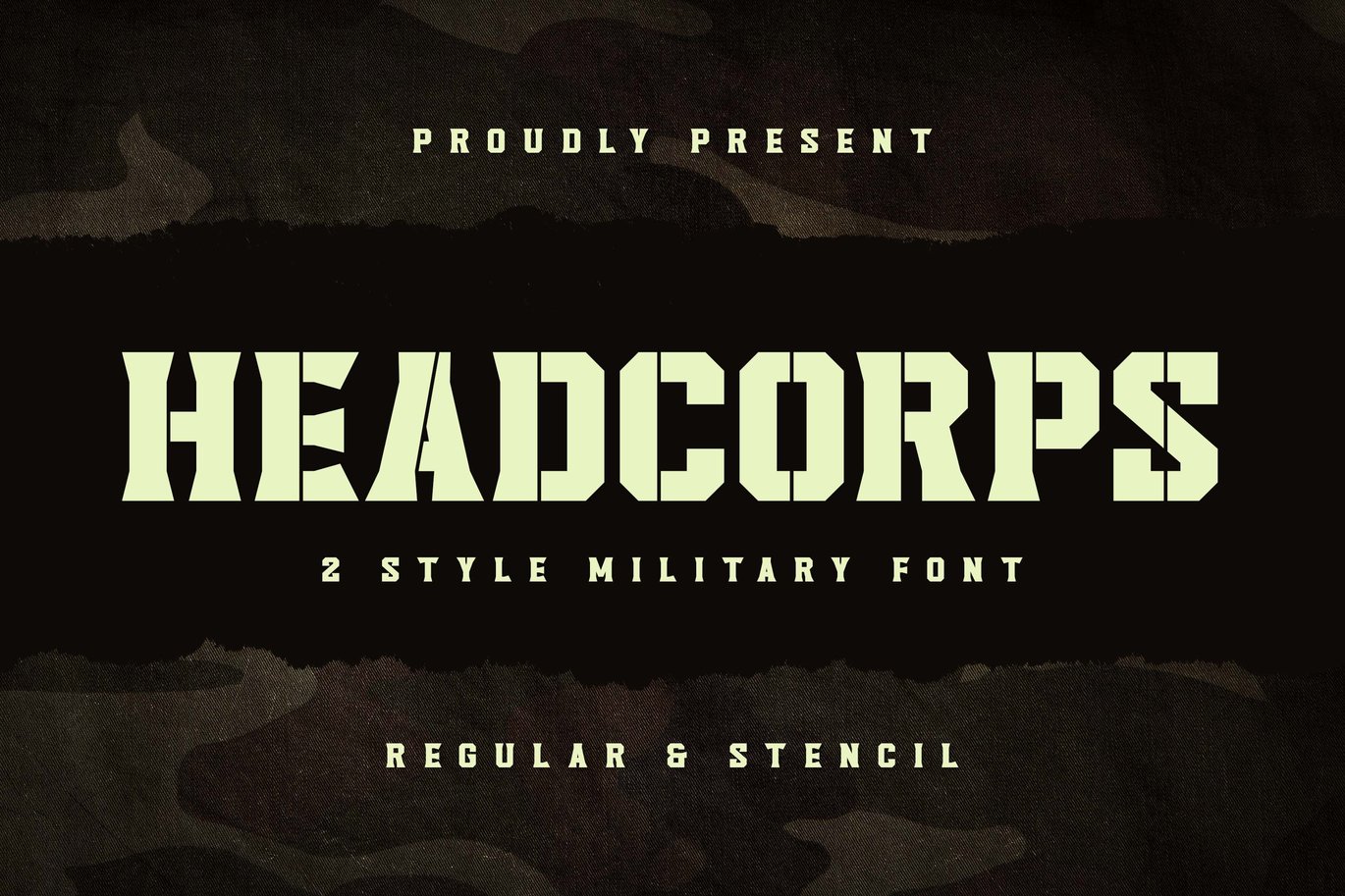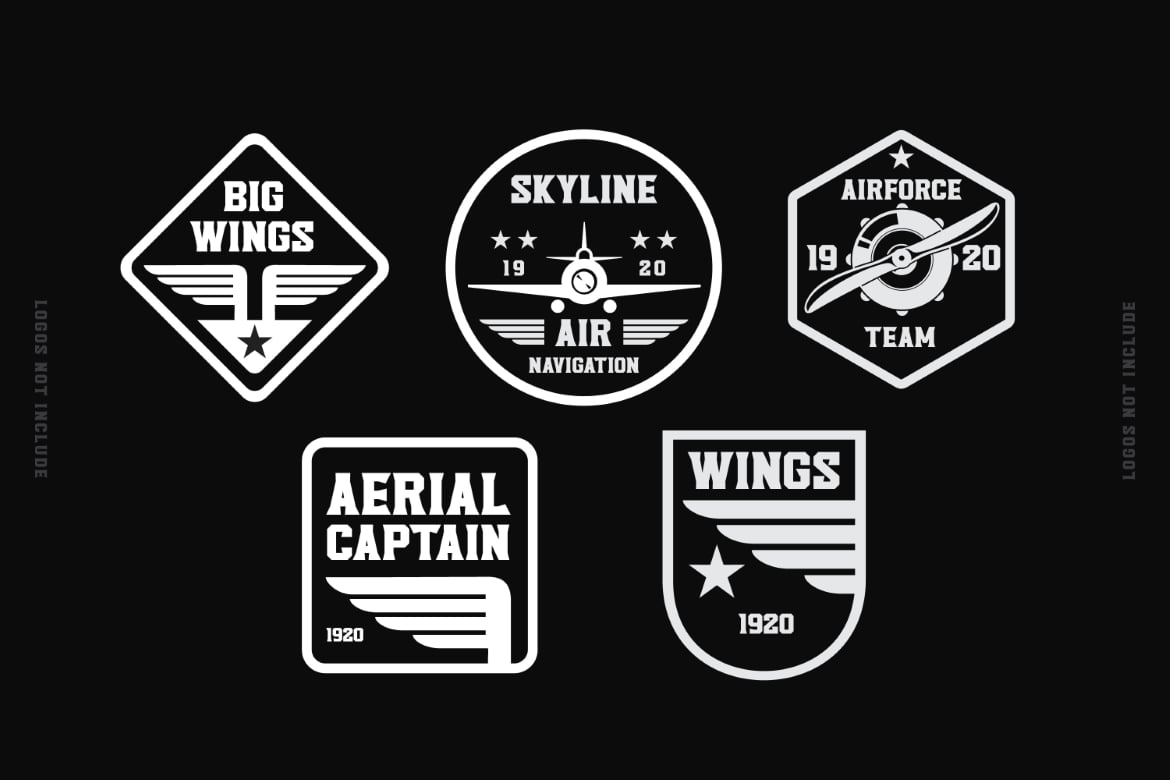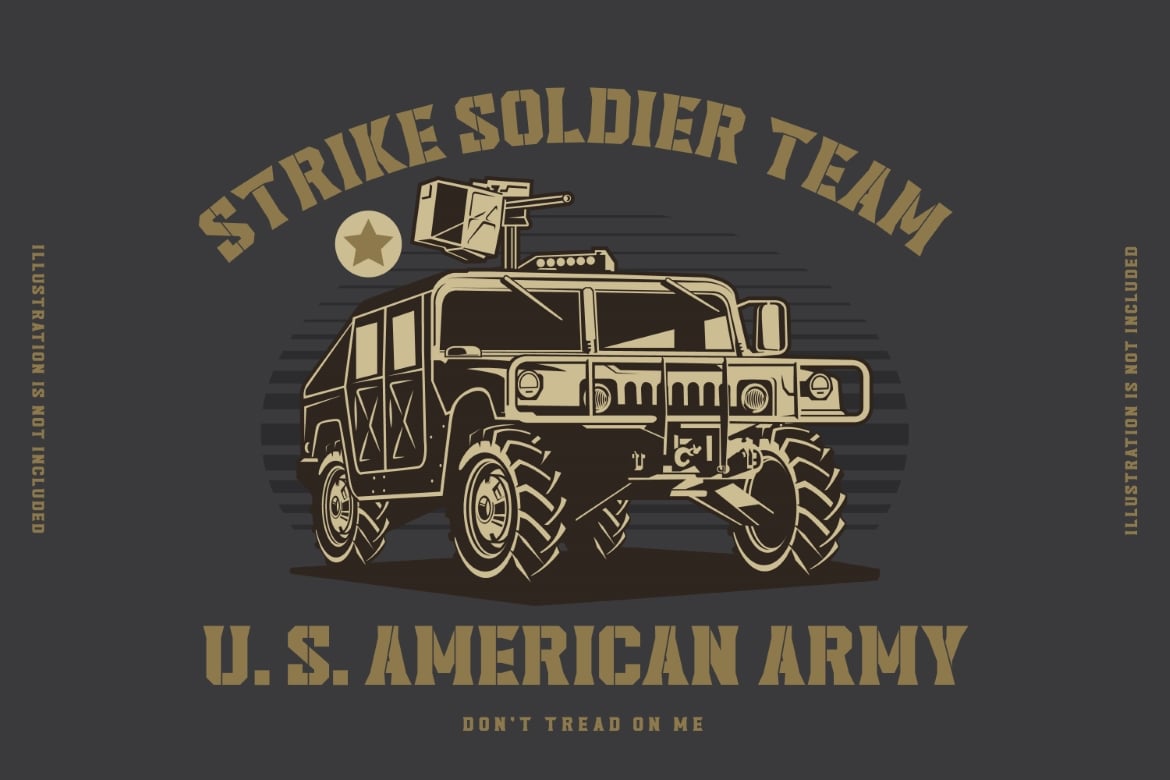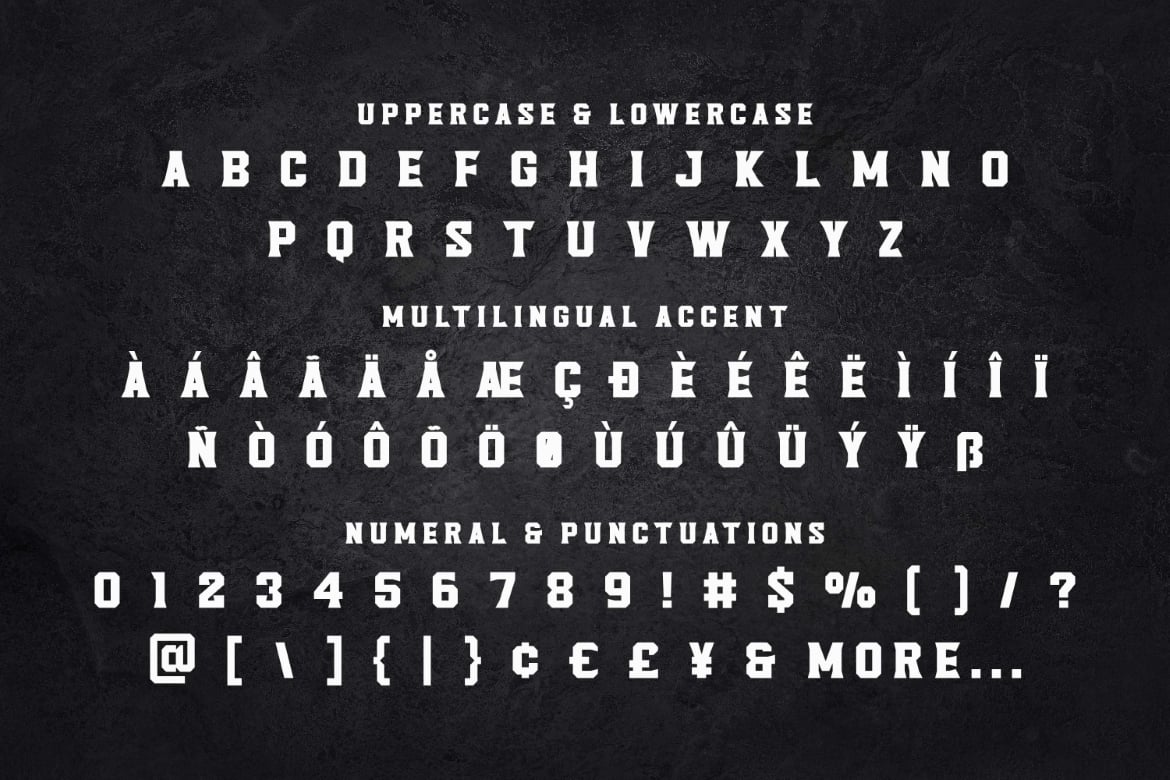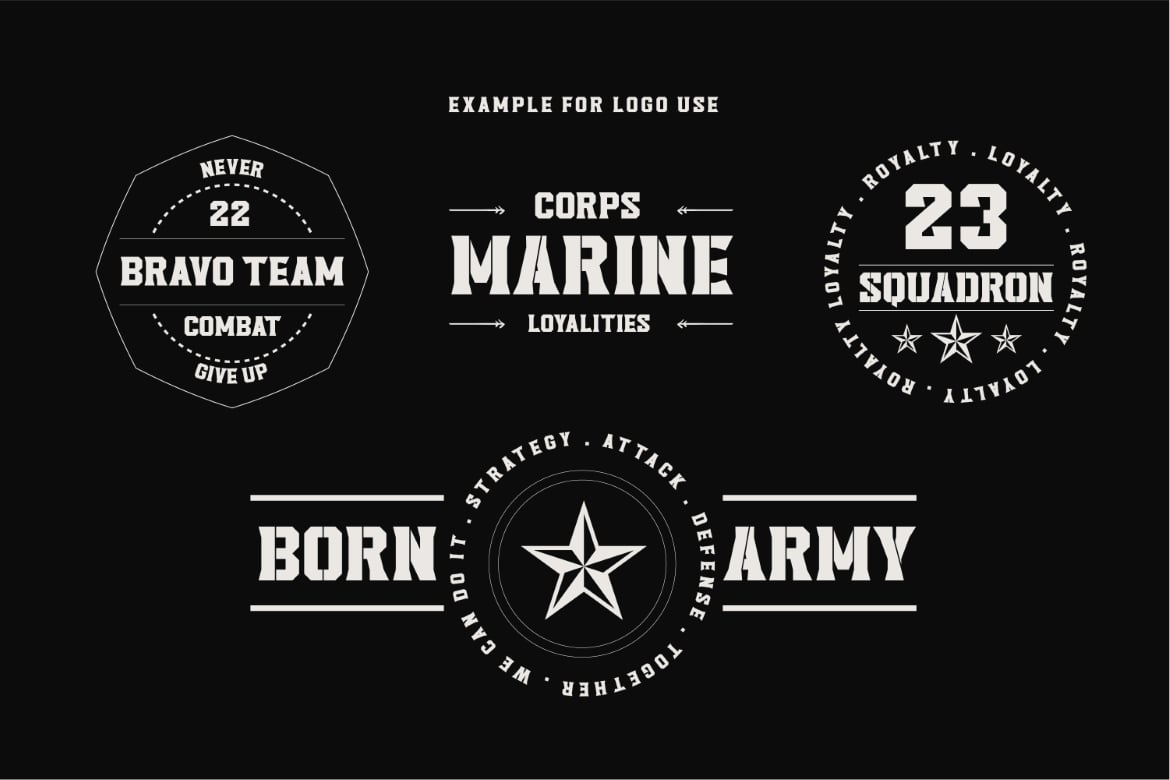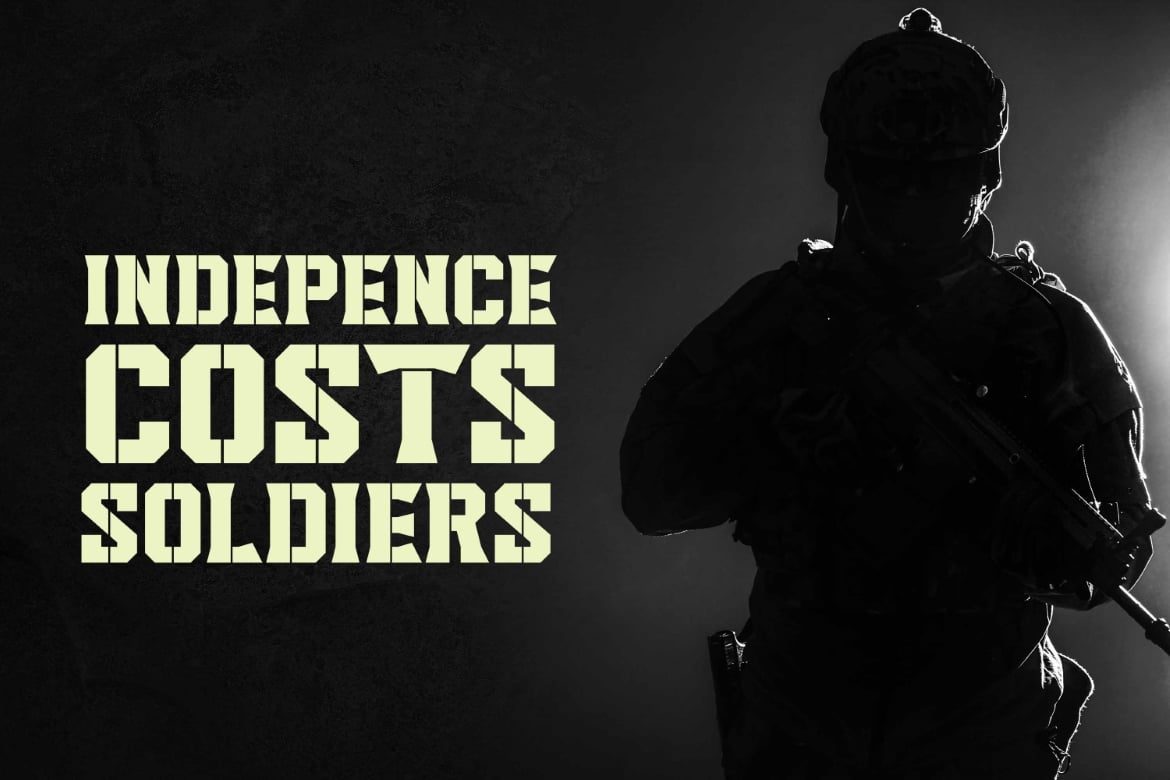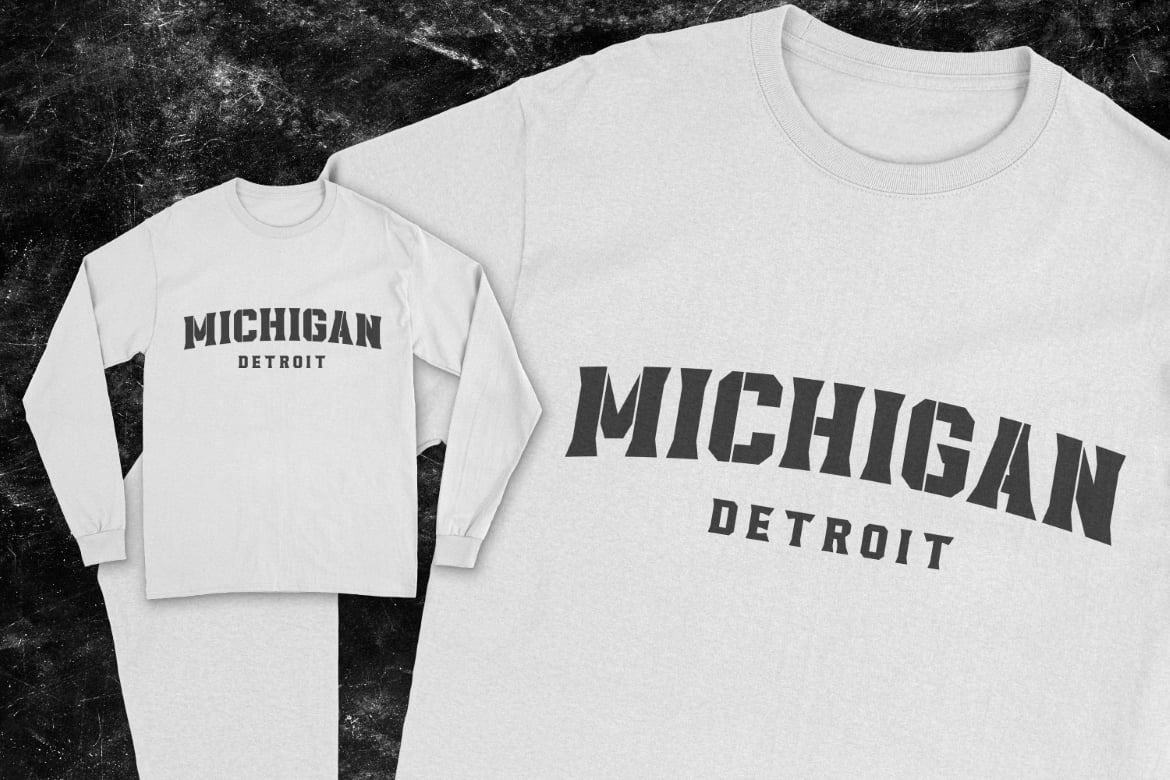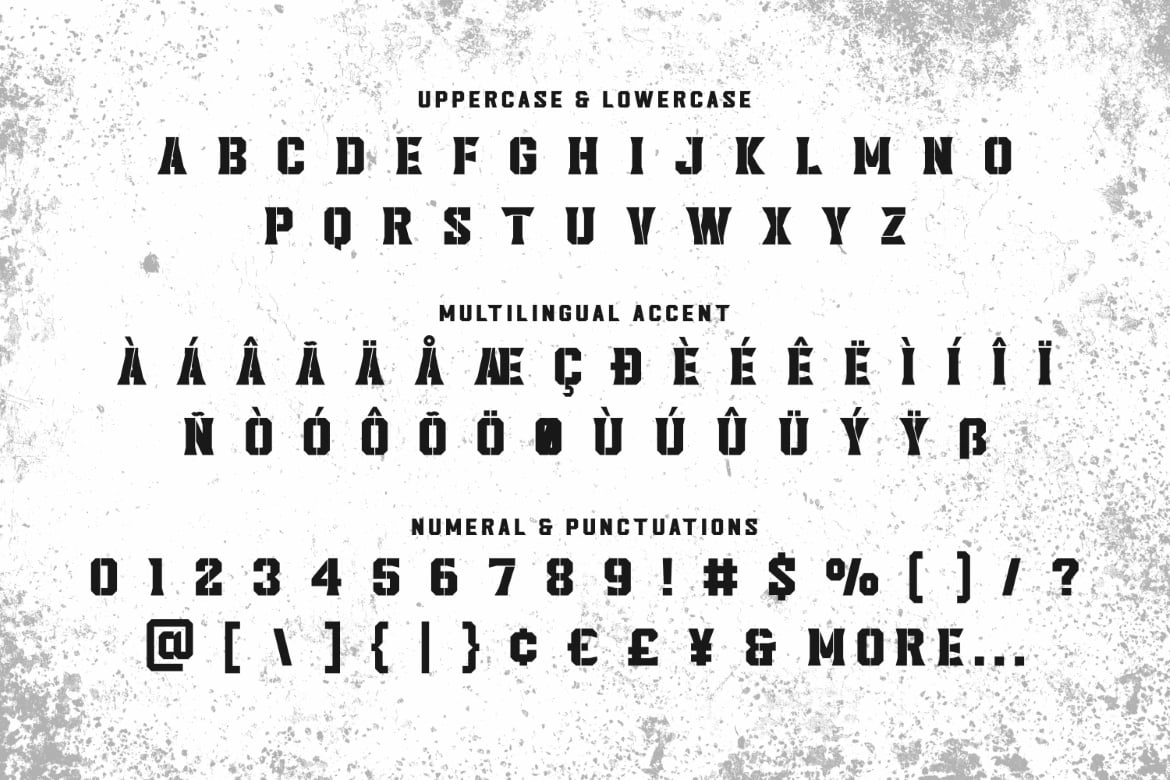
Headcorps – Military Serif Font
Headcorps is a Serif military style font, first conceptualize was inspired by the classic vintage military stencil design .
I wanted a typeface that could be a solid base for any military inspired project Headcorps Fonts can be used for wallpaper, pattern fills, web page background, surface textures. Perfect for making army posters , scrapbooking,invitation cards, label stickers, stationary, gift wrap, packaging, clothes, buttons, pendants, holiday gifts, print on fabrics and so much more
- Multilingual Accent